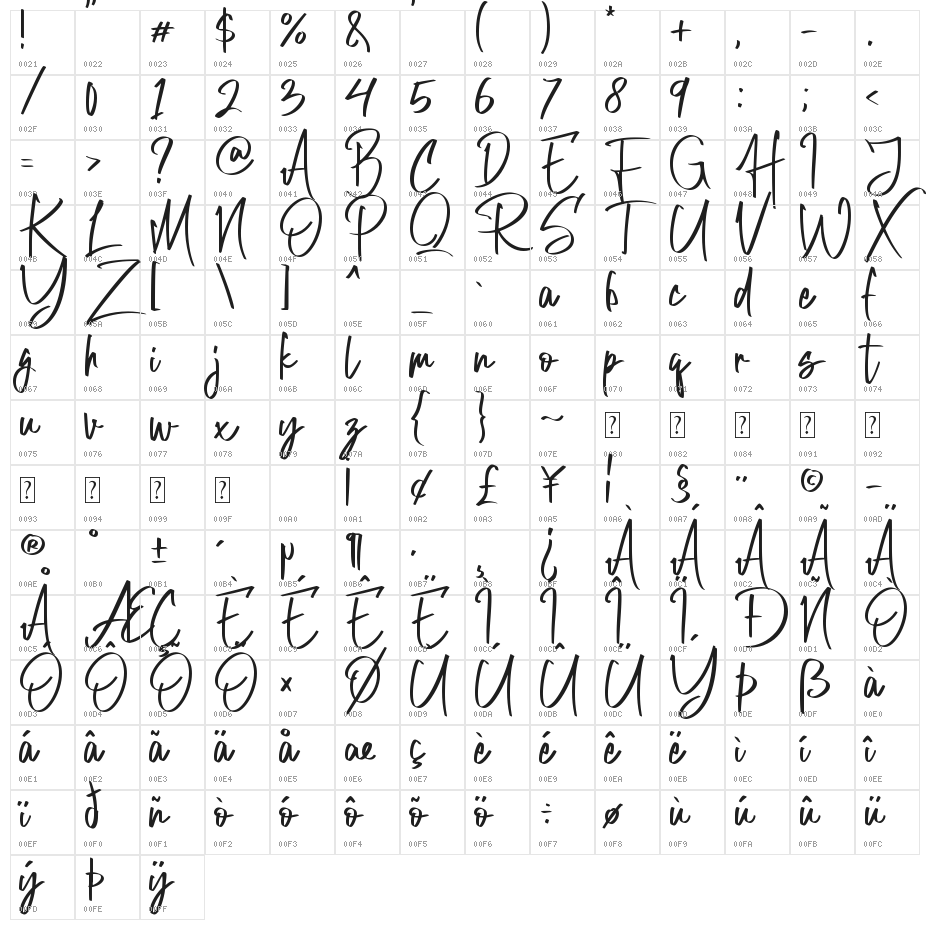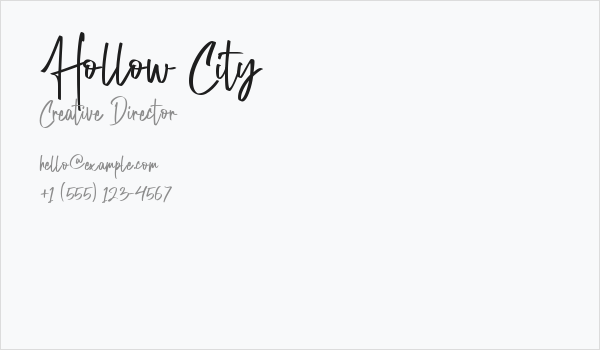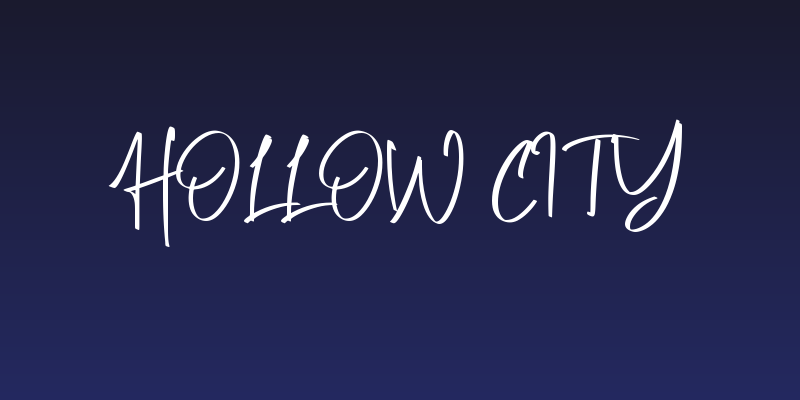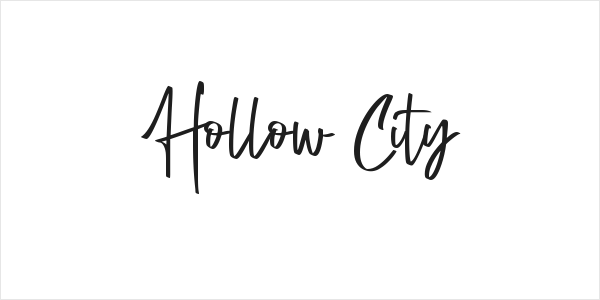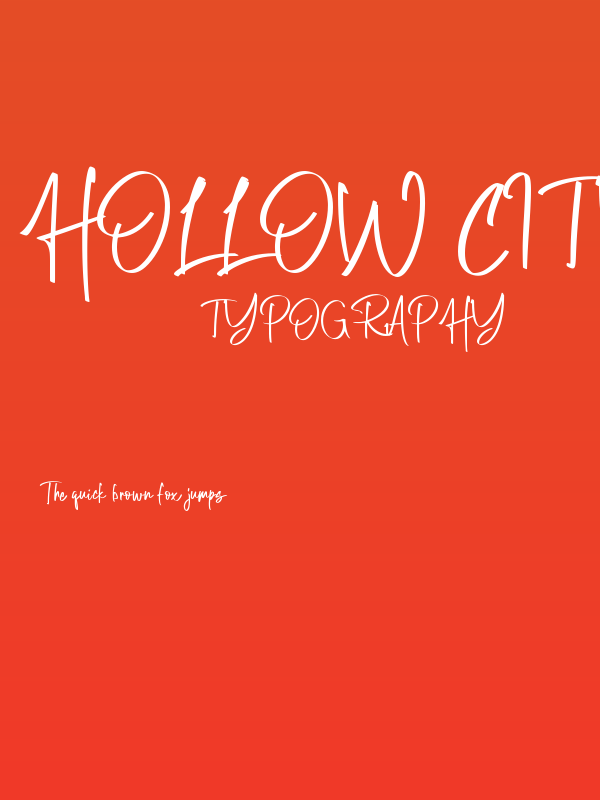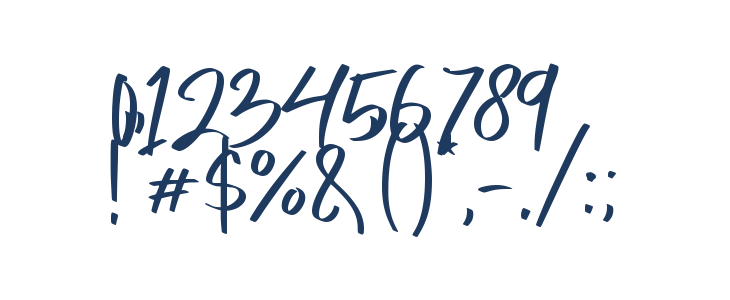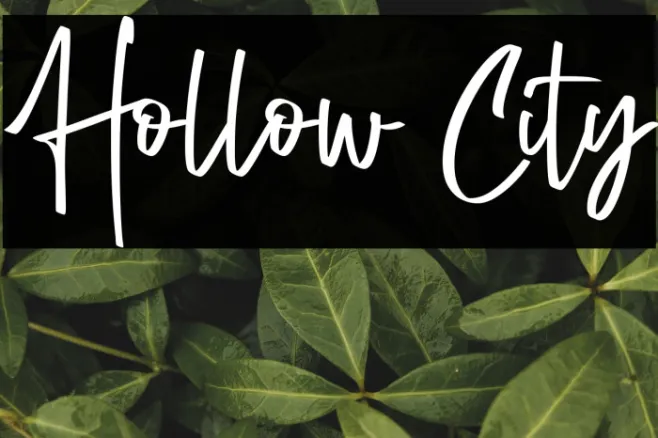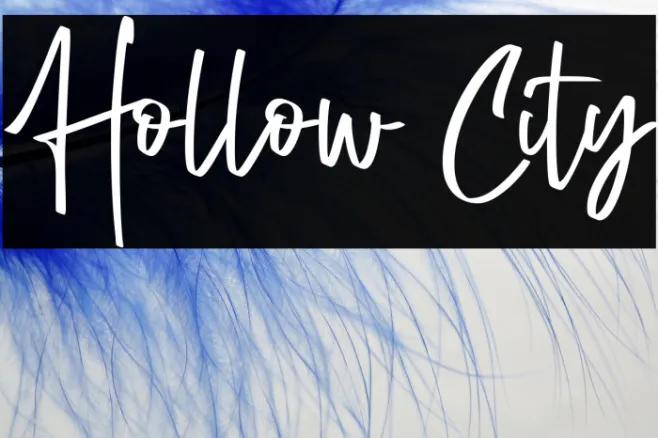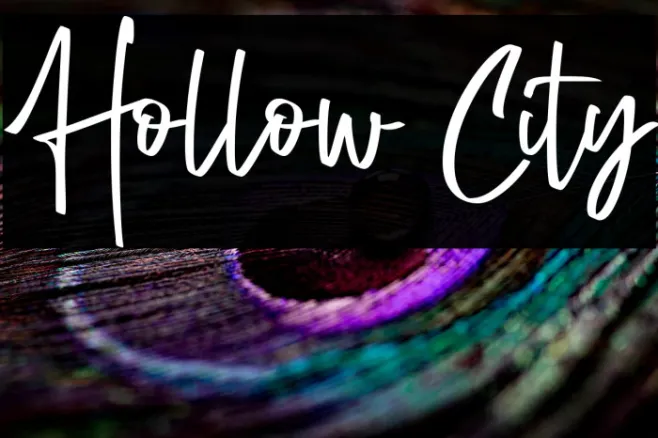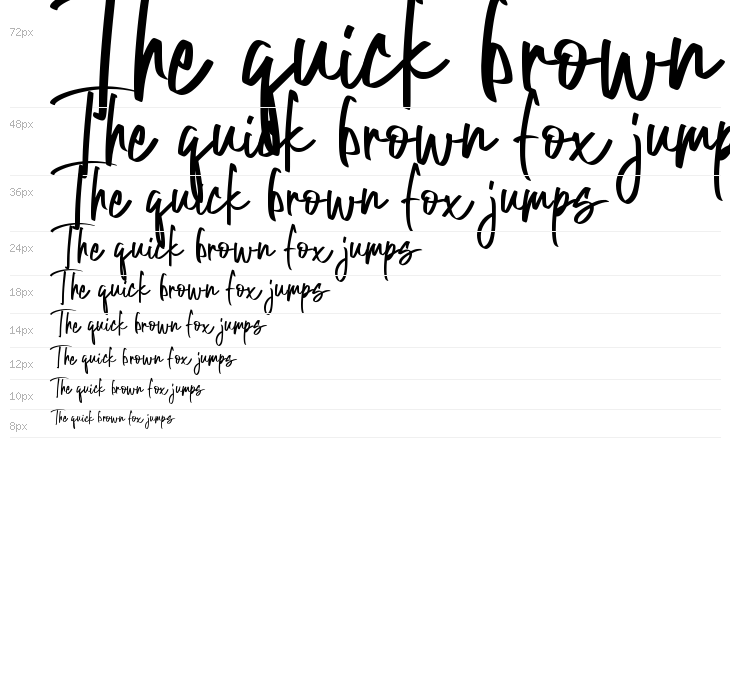
Hollow City Font
Hollow City Description
This font features a dynamic and energetic handwritten style, characterized by its fluid and slightly irregular strokes. The uppercase letters are tall and narrow, with a slight slant that adds to the casual and informal feel. The lowercase letters maintain a consistent flow, with some letters extending below the baseline, enhancing the handwritten aesthetic. The numerals are bold and slightly exaggerated, matching the overall lively style of the font. Special characters are creatively integrated, maintaining the playful and spontaneous nature of the design. This font is perfect for projects that require a personal touch, such as invitations, greeting cards, or creative branding.